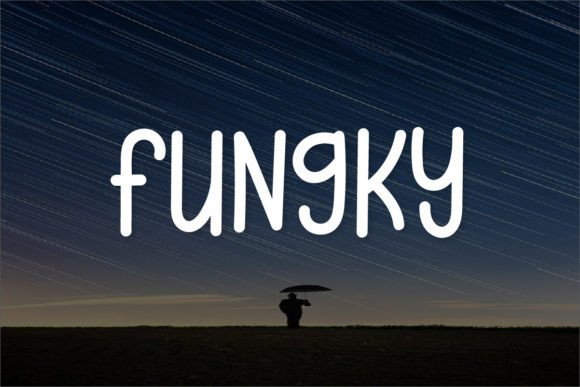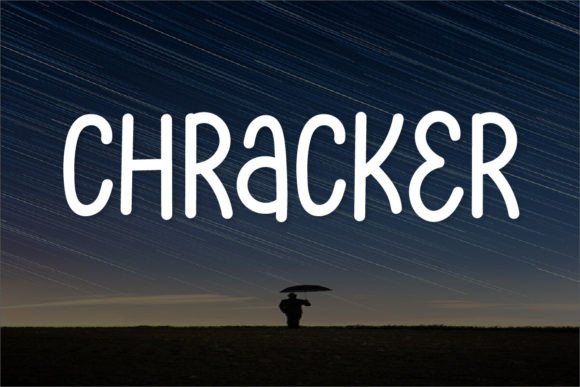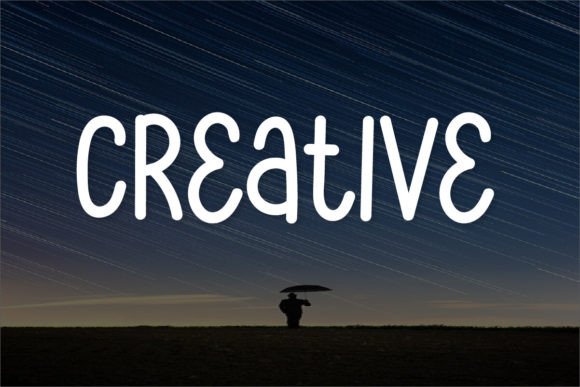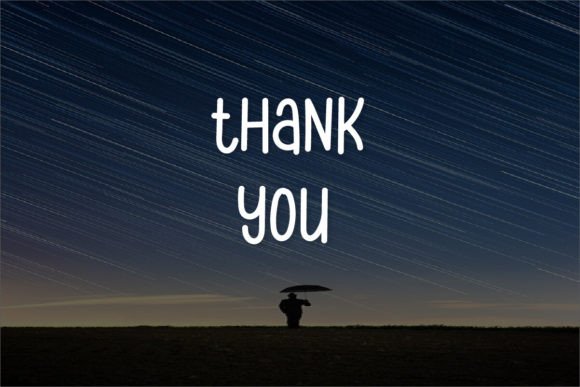
The Catch: Why Fishing Font is a Must-Have for Designers and Crafters
I’ll never forget the time I was working on a project for a client who wanted a custom logo for their fishing gear business. I had spent hours browsing through font libraries, but nothing seemed quite right. That was until I stumbled upon Fishing Font. Its playful, handwritten style instantly caught my attention, and I knew I had found the perfect fit. In this article, I’ll share my experience with Fishing Font, its features, and how to make the most of it in your designs.
An Honest Review of Fishing Font
- ✨ Versatility: Fishing Font is incredibly versatile, making it perfect for a wide range of projects, from Cricut crafts to professional branding.
- ✅ Easy to Read: The font is clear and easy to read, even at smaller sizes, which is a must for any design.
- 💕 Cute and Trendy: The handwritten style is both trendy and adorable, adding a personal touch to any design.
- 🎨 OpenType Features: Fishing Font comes with a range of OpenType features, including glyphs and stylistic alternates, giving you plenty of creative options.
While Fishing Font is an excellent choice for many projects, there are a few things to keep in mind:
- 🤔 Limited Formality: Due to its handwritten nature, Fishing Font may not be the best choice for very formal or corporate projects.
- ⚠️ Kerning Issues: As with any font, you may need to adjust kerning for optimal results, especially when using all caps or large text sizes.
The Story Behind Fishing Font
Fishing Font was designed with the outdoors in mind. Its creator, a passionate angler and designer, wanted to capture the carefree spirit of fishing in a font. The result is a playful, yet elegant font that’s perfect for any project that needs a touch of whimsy.
| Font Name | Fishing Font |
| Author | AA studio |
Q: What is Fishing Font best used for?
A: Fishing Font is a versatile font suitable for a wide range of projects, including Cricut crafts, professional branding, and creative designs.
Q: Does Fishing Font come with OpenType features?
A: Yes, Fishing Font includes a range of OpenType features, including glyphs and stylistic alternates, giving you plenty of creative options.
Q: Is Fishing Font easy to read?
A: Yes, Fishing Font is clear and easy to read, even at smaller sizes, making it perfect for body text and other applications where readability is important.